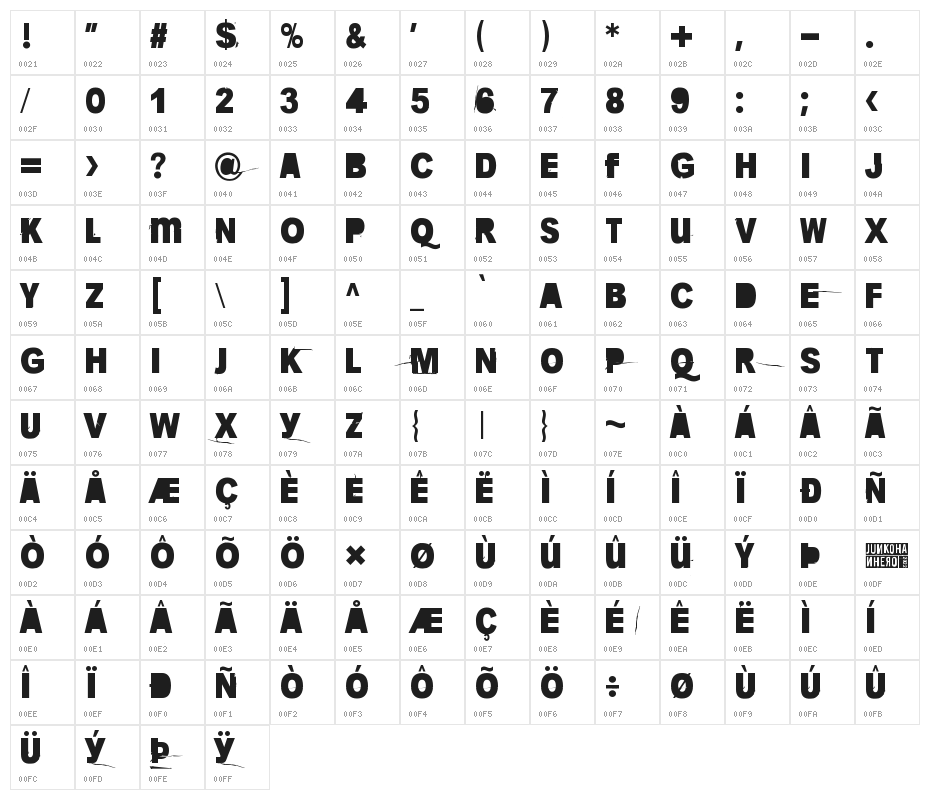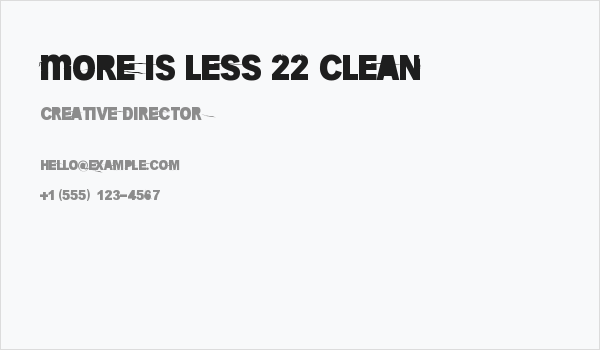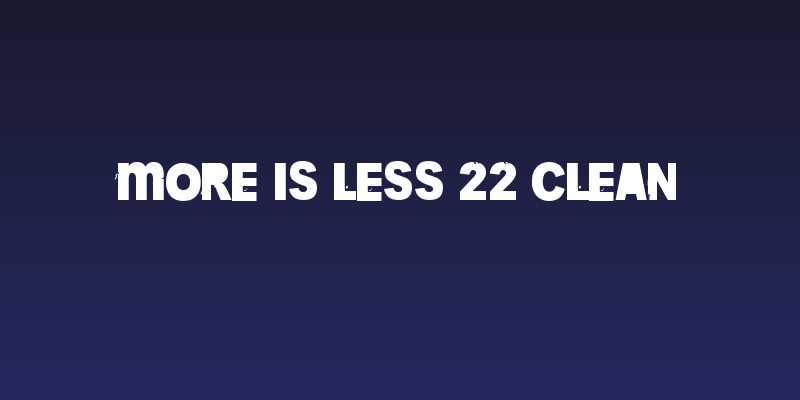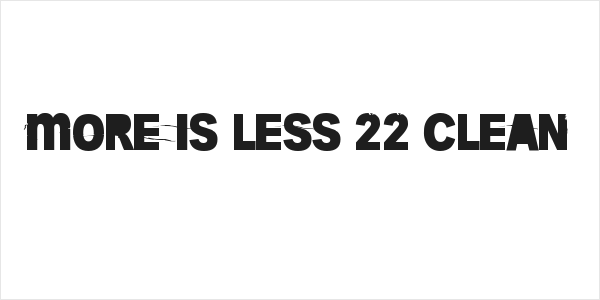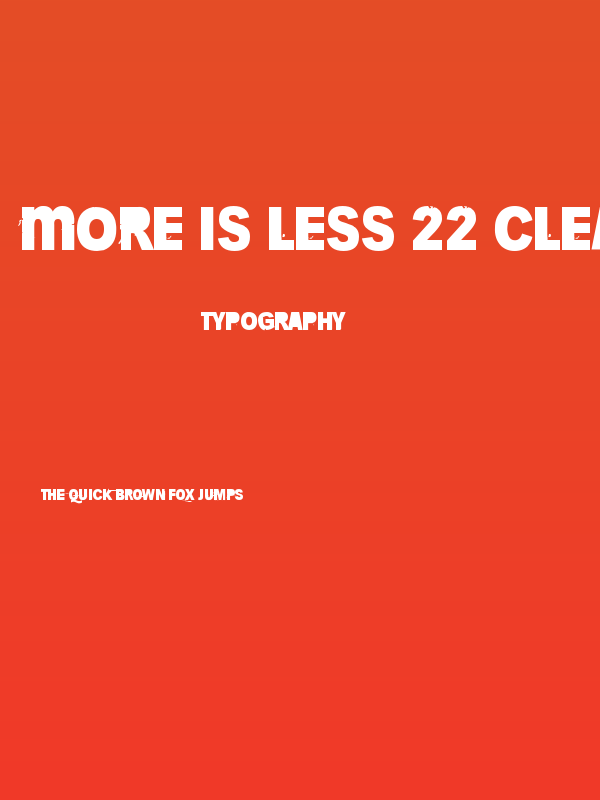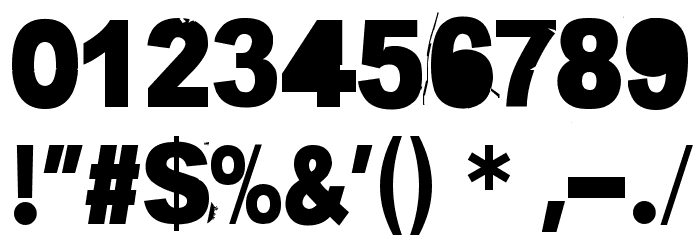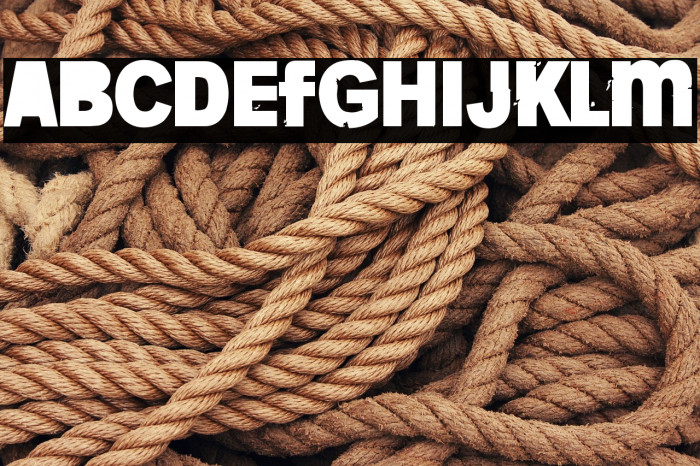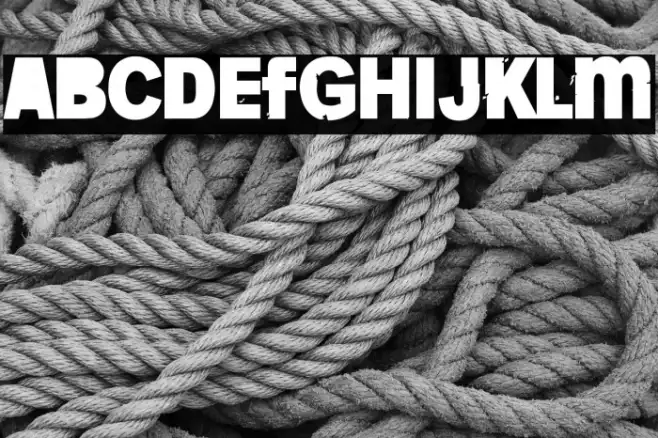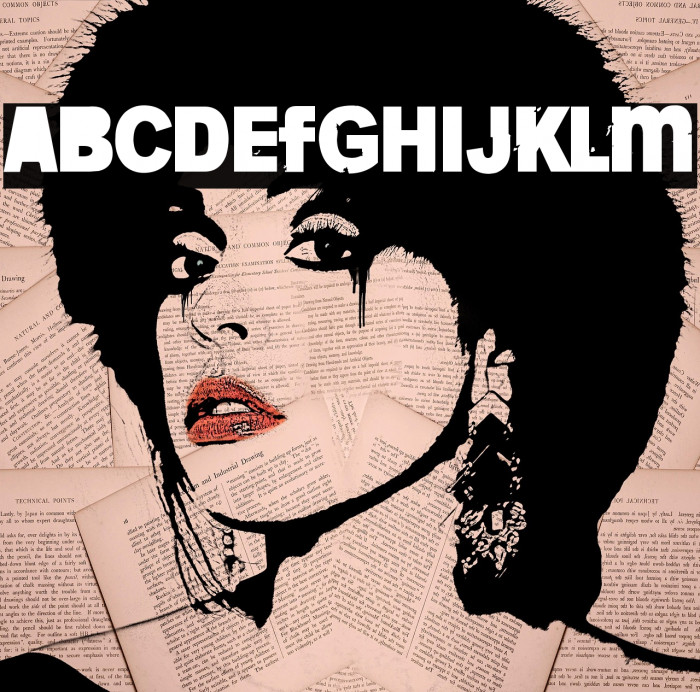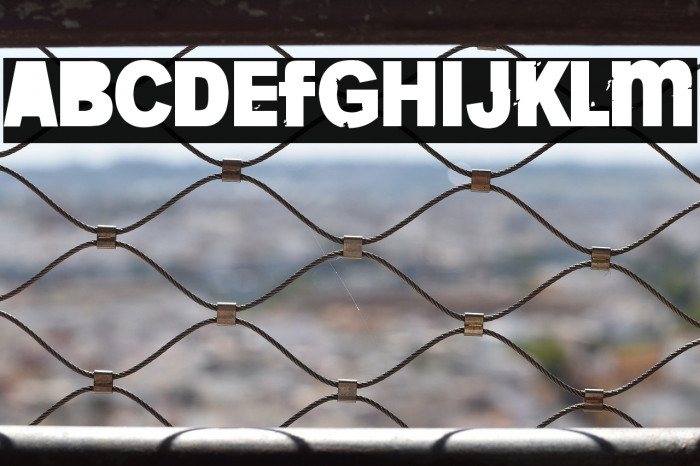
More is less 22 Clean Font
More is less 22 Clean Description
This font features a bold and impactful design, characterized by thick, uniform strokes and a strong presence. The uppercase letters are particularly prominent, with a blocky and robust appearance that commands attention. The lowercase letters maintain the same weight and style, ensuring consistency throughout. The numerals are equally bold, making them stand out clearly. Special characters are designed with the same heavy strokes, contributing to a cohesive look. This font's style is ideal for making a statement, with its high contrast and solid structure.